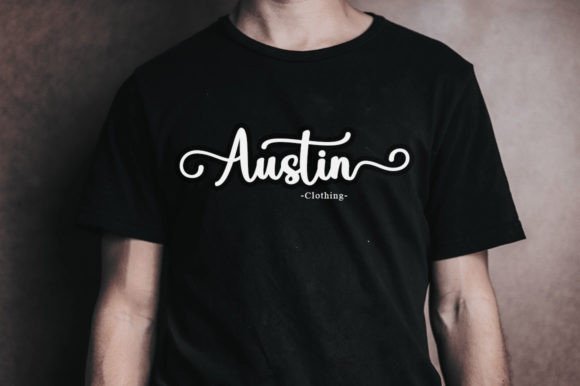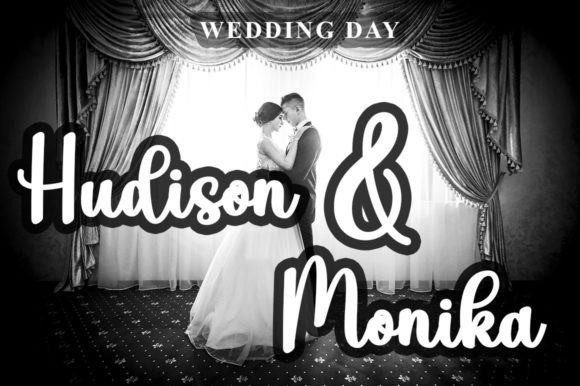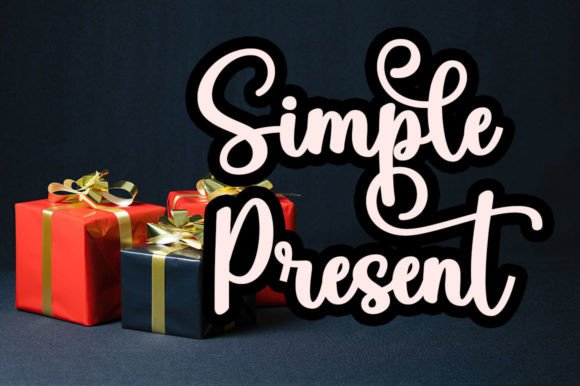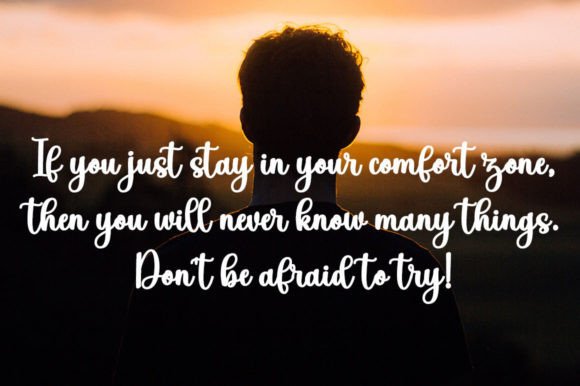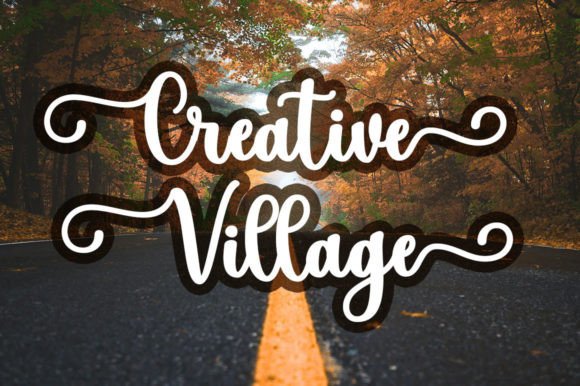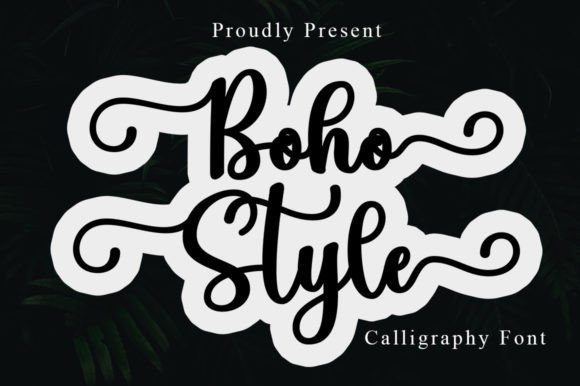
The Boho Style Font: A Designer’s Dream Come True
I’ll never forget the time I was working on a wedding invitation project, and my client asked for a font that was “casual, yet elegant.” I scoured the internet, tried out countless fonts, but nothing seemed quite right. That was until I stumbled upon the Boho Style Script font. ✨ It was love at first sight! With its modern calligraphy style, beautiful swashes, and effortless charm, I knew I had found the perfect fit.
- ✨ The Boho Style Script font is a modern calligraphy font that exudes a sense of casual elegance.
- ✅ It comes with a range of features, including all uppercase and lowercase letters, alternates, ligatures, numbers, symbols, and support for multiple languages.
- ✅ The font is incredibly versatile and can be used for a wide range of projects, from logos and product packaging to wedding invitations and book covers.
- ✅ The OpenType features, including substitutes and binders encoded in PUAs, make it easy to access a wide range of glyphs and stylistic alternates.
While the Boho Style Script font is amazing, there are a few things to keep in mind. 🤔 For example, some users may find that the font can be a bit finicky when it comes to kerning and spacing, particularly when using certain combinations of letters or swashes. ⚠️ Additionally, the font may not be suitable for very small text sizes, as some of the intricate details and swashes may get lost.
The Story Behind Boho Style Script
The Boho Style Script font was designed with the creative hobbyist in mind. The designer, who wishes to remain anonymous, was inspired by the bohemian lifestyle and the beauty of handwritten calligraphy. With its unique blend of modern style and classic elegance, Boho Style Script is the perfect font for anyone looking to add a touch of personality to their designs.
| Font Name | Boho Style Font |
| Author | rotterlabstudio |
A: The Boho Style Script font is a modern calligraphy font that includes a range of features, such as swashes, alternates, and ligatures.